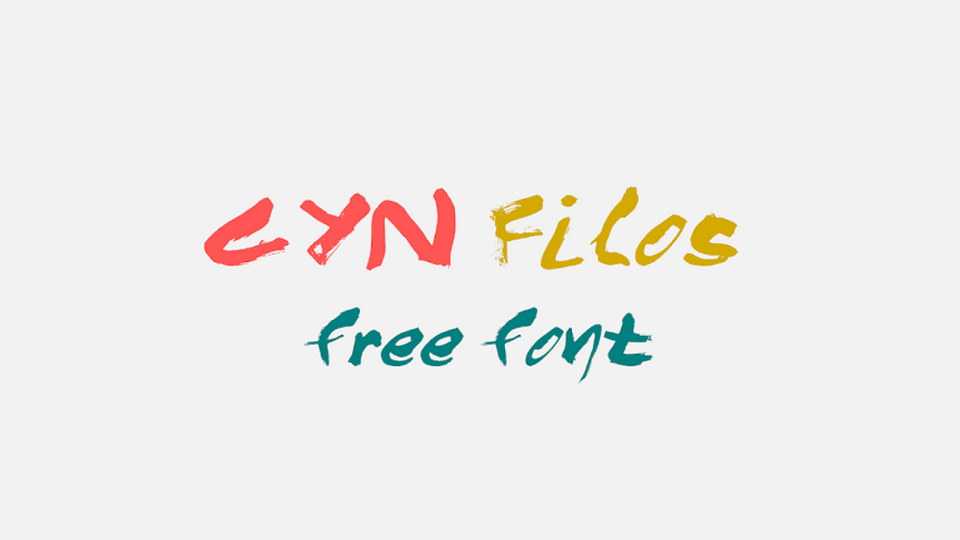
Download CYN Filos font, a handcrafted brushed typeface with a grungy textured look. CYN Filos font fits for posters, album artworks, t-shirt prints and more.
Designer: Petros Vasiadis